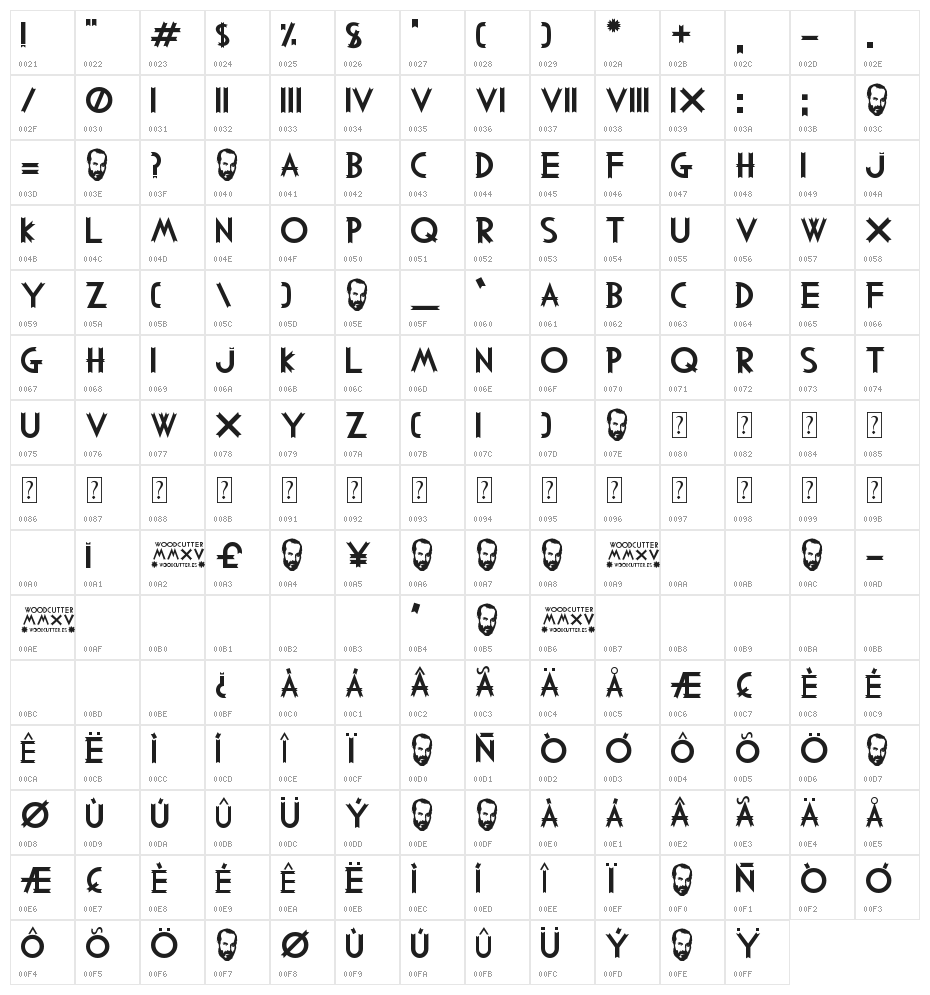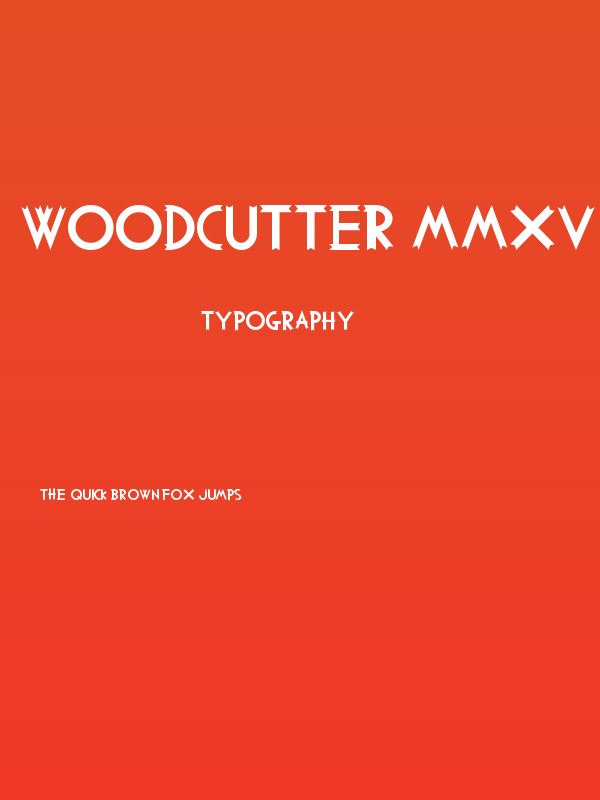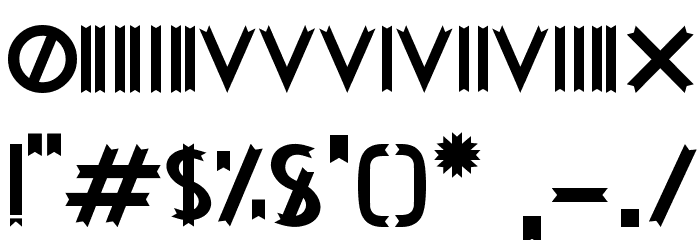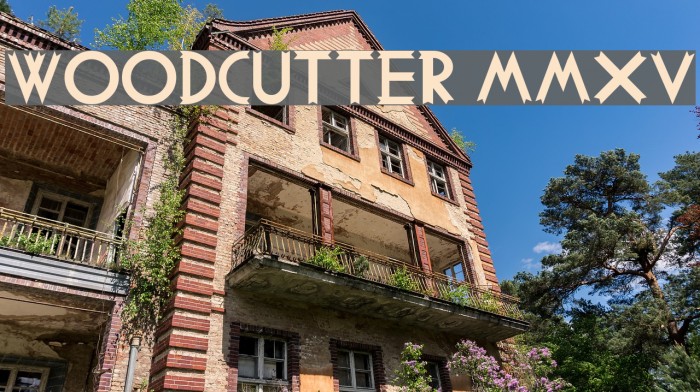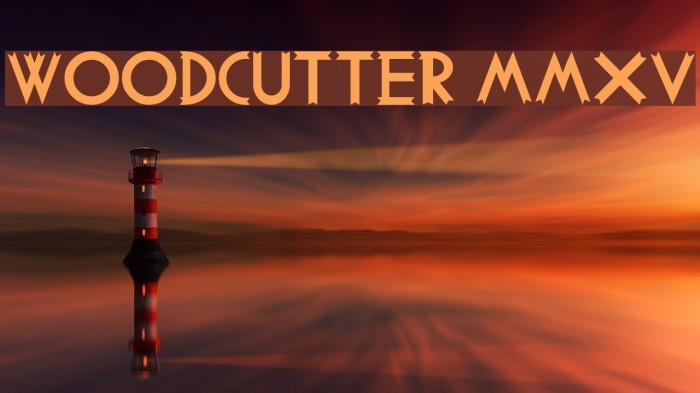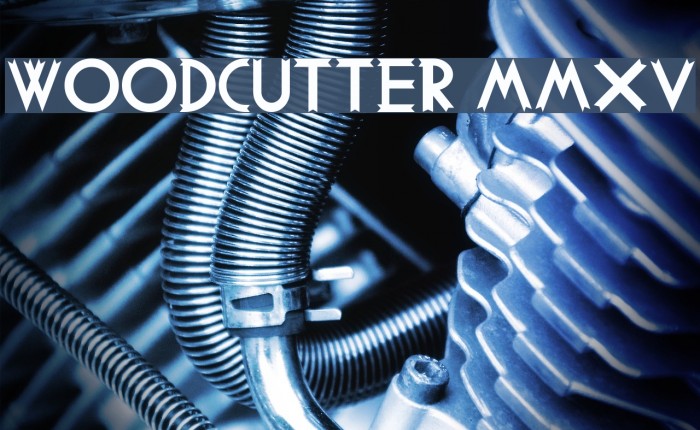
Woodcutter MMXV Font
This font features a bold and striking design with sharp, angular edges that give it a distinctive, edgy appearance. The characters are crafted with a unique cut-out style, reminiscent of woodcut art, which adds a rugged and artistic flair. The uppercase letters are particularly prominent, with a strong geometric form that commands attention. The numerals and special characters maintain this bold aesthetic, ensuring consistency across all glyphs. This font's design is both modern and reminiscent of traditional craftsmanship, making it versatile for various creative applications.
| Proposed Projects | Ideal for posters, logos, branding, and any project requiring a bold, artistic statement. |